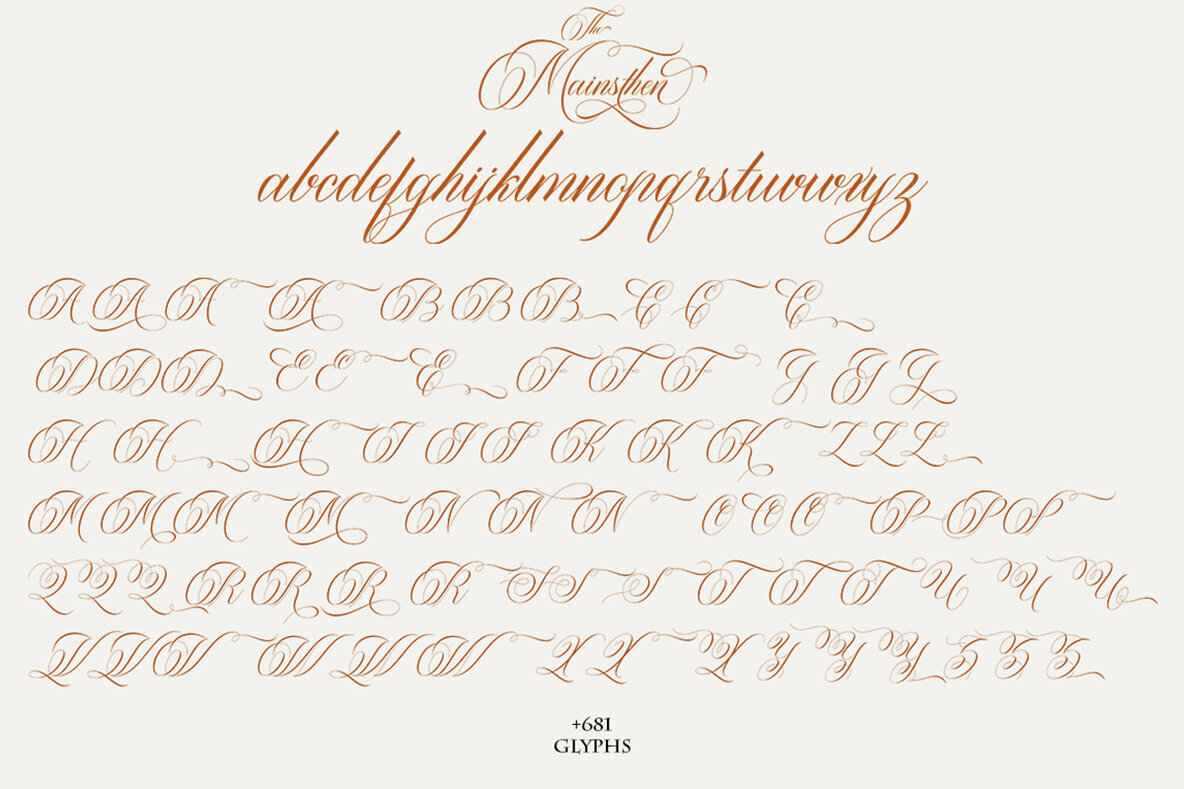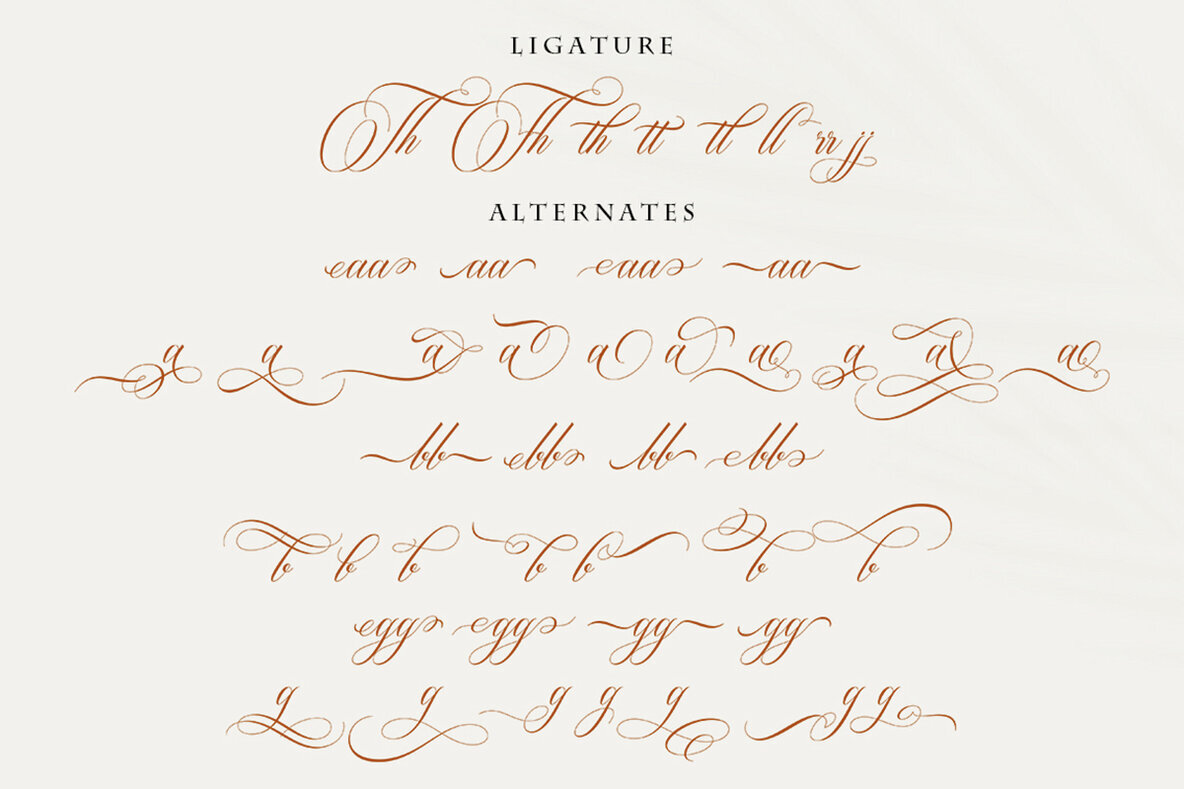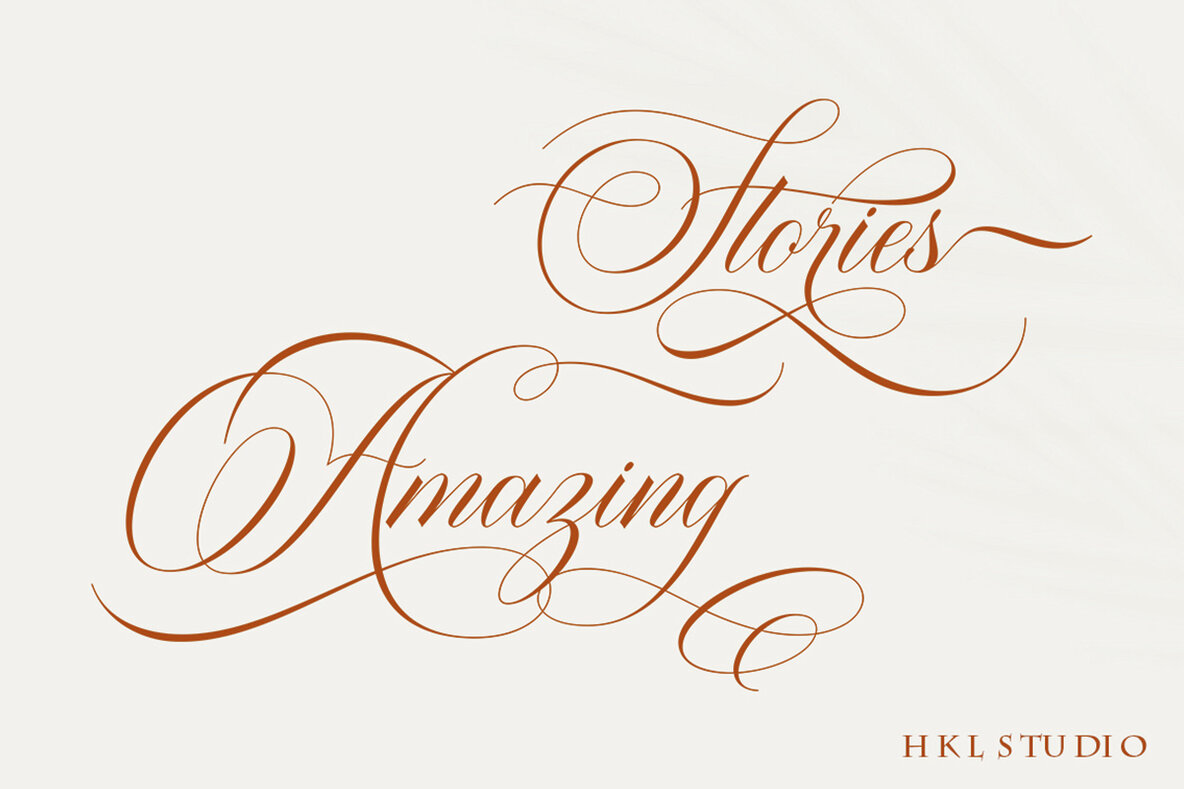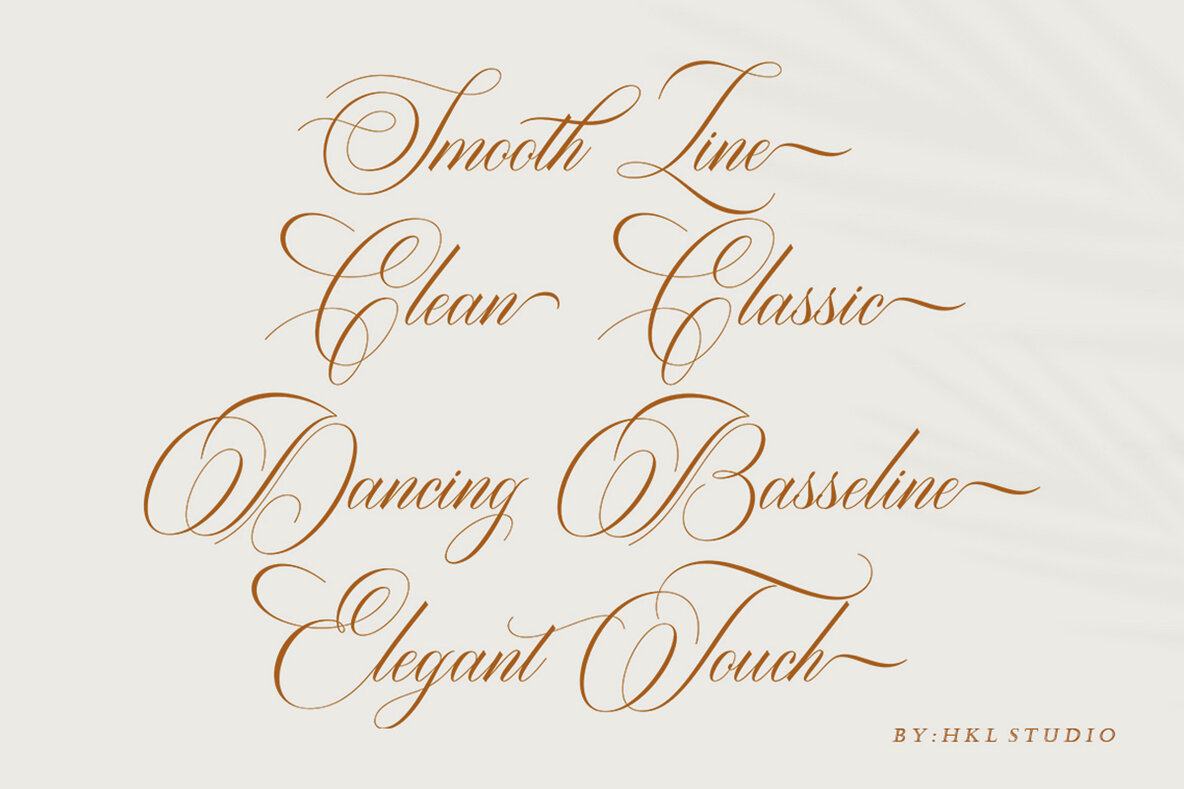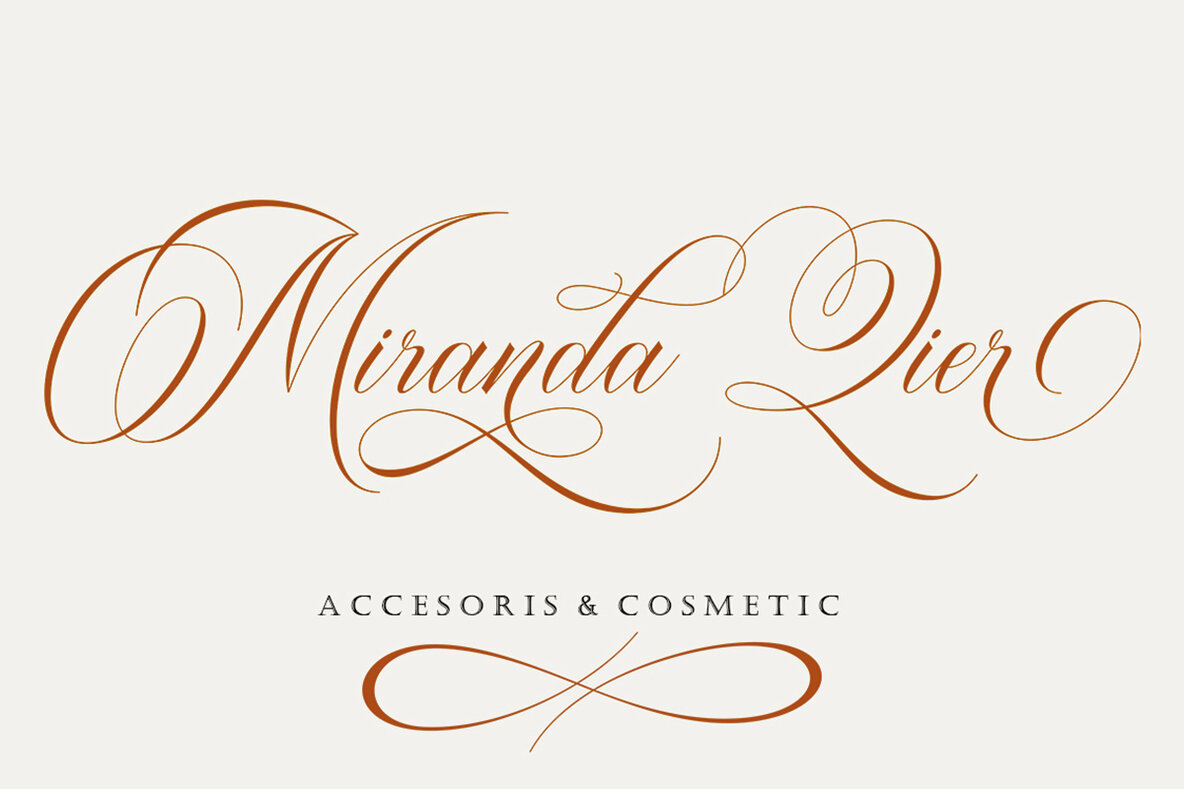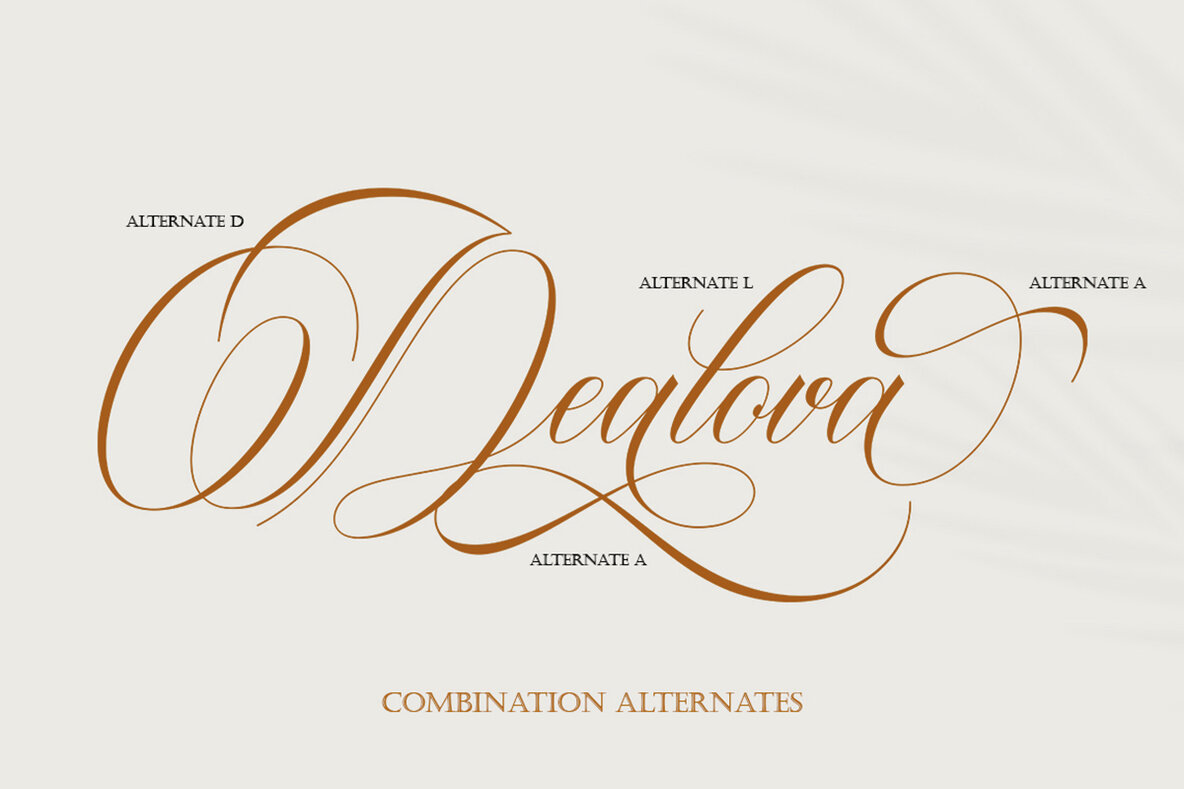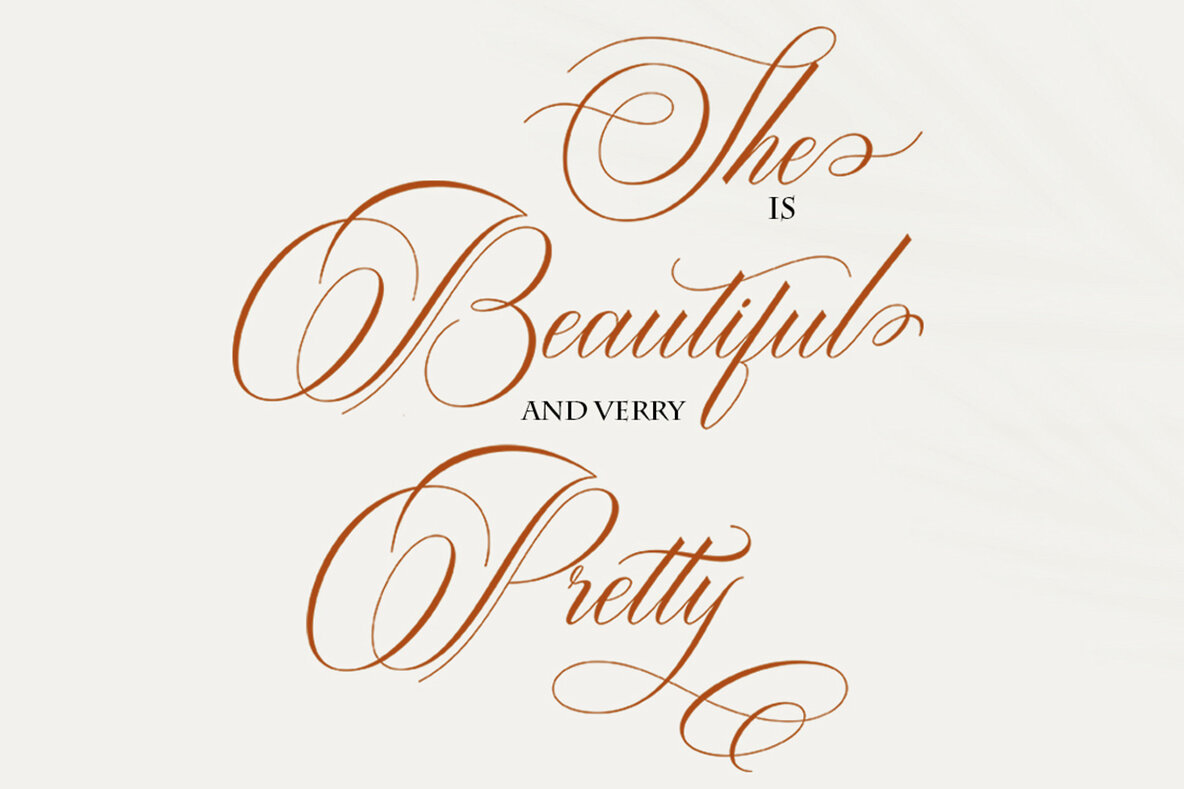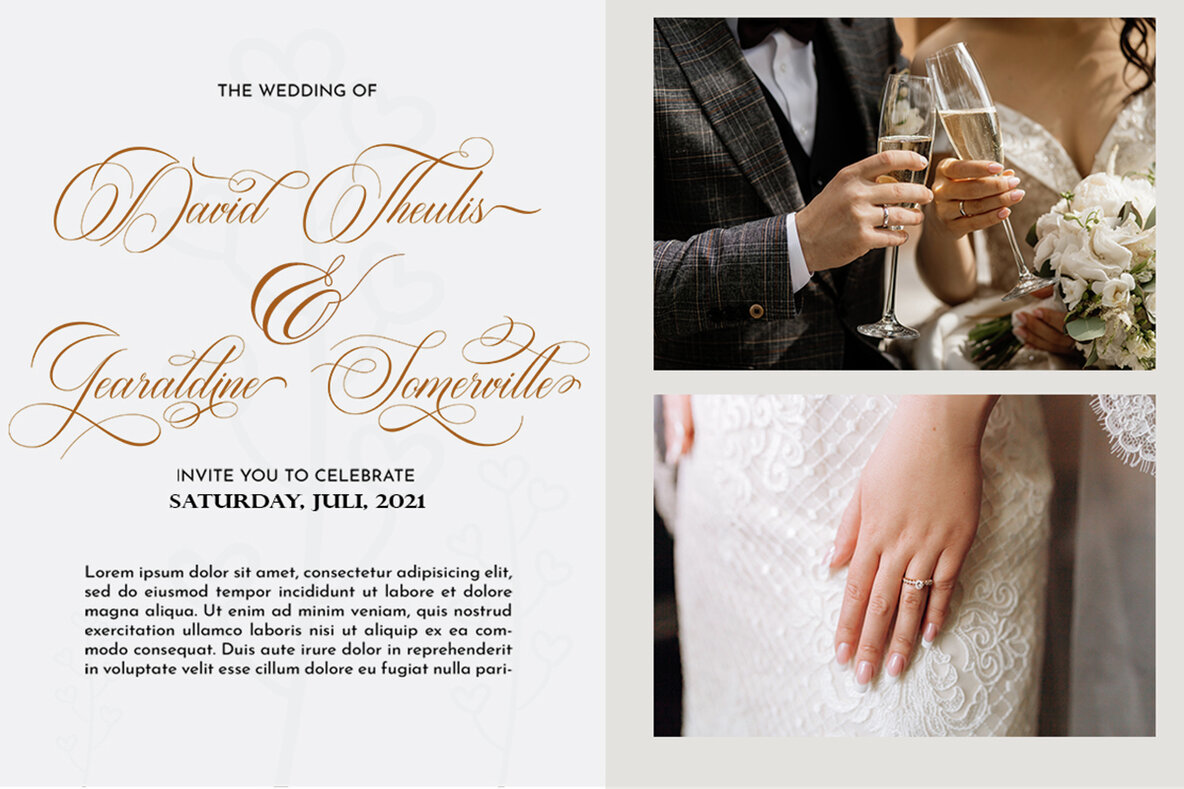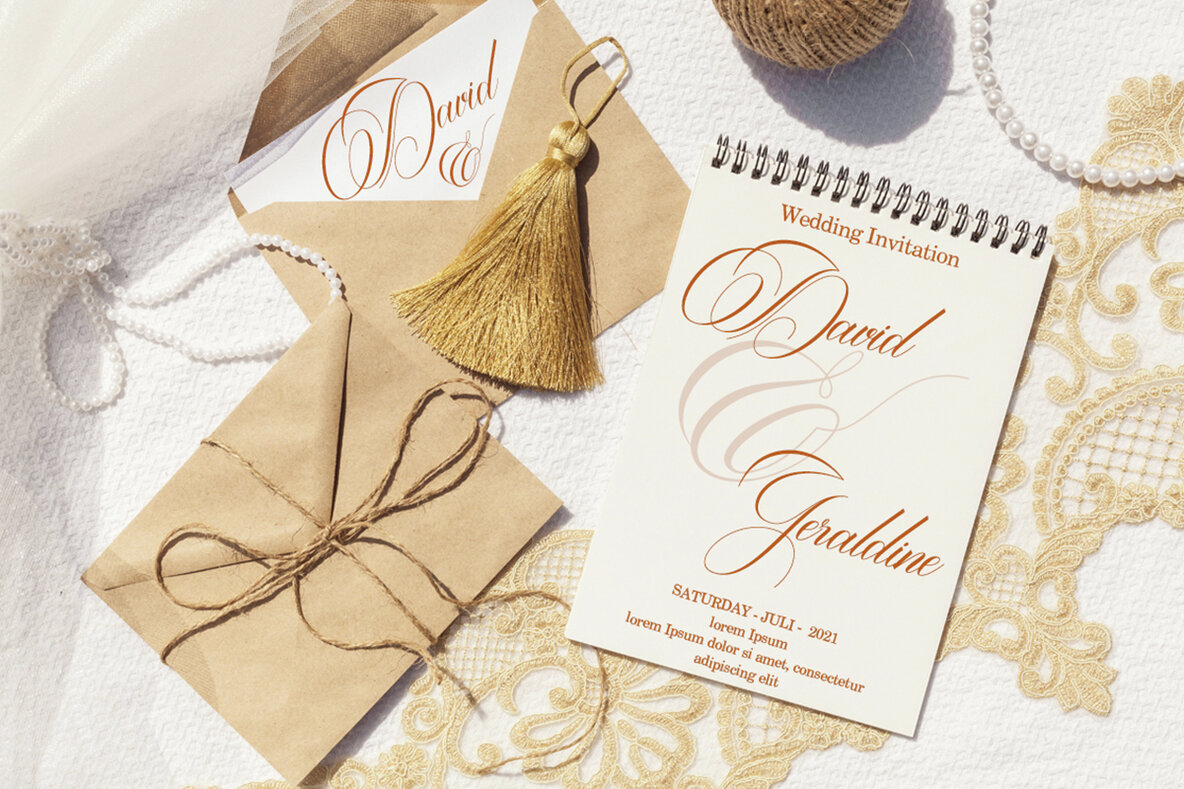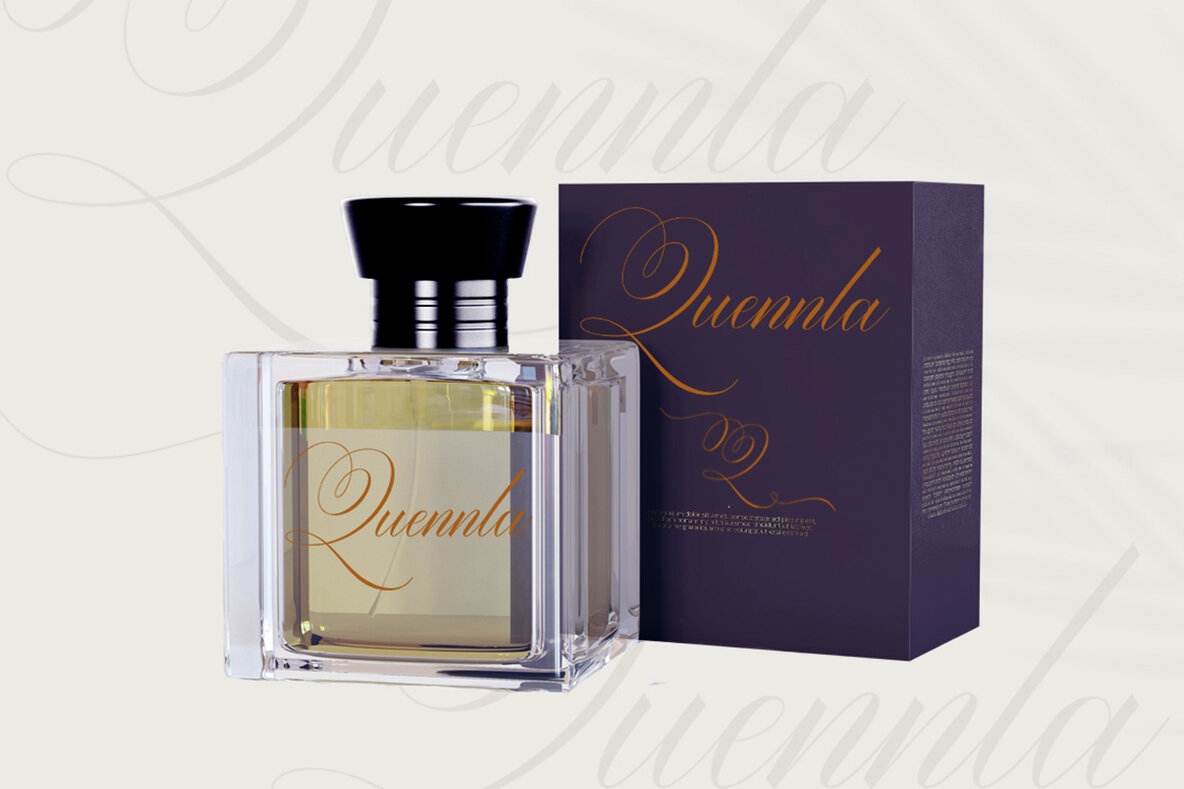
The Mainsthen Font
The Mainsthen is a calligraphy script font that comes with exquisite character changes, a kind of classic copper decorative script with a modern twist, designed with high detail to bring out an elegant style. Antura script is interesting because it has a soft, clean, feminine, sensual, glamorous, simple and very easy to read typeface, because there are many fancy letter joints. I also offer a number of decent stylistic alternatives for multiple letters. Classic style is very suitable to be applied in various formal forms such as invitations, labels, restaurant menus, logos, fashion, make up, stationery, novels, magazines, books, greeting / wedding cards, packaging, labels or any type of advertising purposes. The Mainsthen is encoded with Unicode PUA, which allows full access to all additional characters without having any special design software. Mac users can use Font Book, and Windows users can use Character Map to view and copy any of the additional characters to paste into your favorite text editor / application.